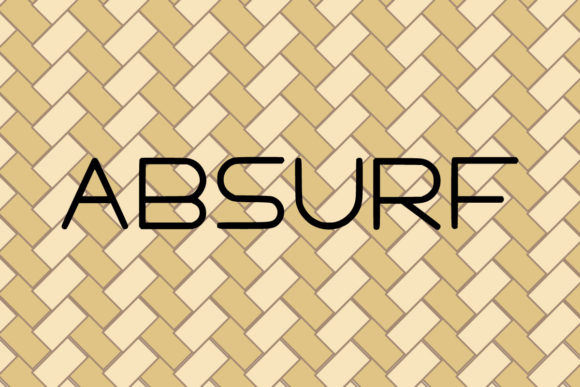
Introducing Absurf Font: The Ultimate Sans Serif for Creative Projects
Are you tired of using the same old fonts for your design projects? Look no further than Absurf Font, a thin lettered and cool sans serif font that’s perfect for making your creations stand out. In this article, we’ll dive into the features and benefits of Absurf Font, and explore how it can elevate your designs to the next level.
What is Absurf Font?
Absurf Font is a modern sans serif font that’s designed to be versatile and adaptable. Its thin lettering gives it a sleek and sophisticated look, making it perfect for a wide range of projects, from branding and advertising to packaging and digital design.
Key Features of Absurf Font
- Thin Lettering: Absurf Font features thin lettering that gives it a unique and modern look.
- Sans Serif: The font is a sans serif font, which means it doesn’t have any decorative lines or flourishes.
- Cool and Sophisticated: The font has a cool and sophisticated look that’s perfect for designs that need to convey a sense of style and elegance.
- Highly Versatile: Absurf Font can be used for a wide range of projects, from digital design to print materials.
Benefits of Using Absurf Font
So why should you choose Absurf Font for your next design project? Here are just a few benefits of using this amazing font:
- Stand Out from the Crowd: Absurf Font is a unique and distinctive font that will help your designs stand out from the crowd.
- Perfect for Modern Designs: The font’s modern look and feel make it perfect for designs that need to convey a sense of style and sophistication.
- Easily Readable: Despite its thin lettering, Absurf Font is highly readable, even at small sizes.
- Flexible: The font can be used for a wide range of projects, from digital design to print materials.
How to Use Absurf Font in Your Designs
Using Absurf Font in your designs is easy. Here are a few tips to get you started:
- Pair it with Other Fonts: Absurf Font pairs well with other sans serif fonts, as well as serif fonts with a similar feel.
- Use it for Headings: The font’s thin lettering makes it perfect for headings and titles.
- Experiment with Colors: Absurf Font looks great in a range of colors, from bold and bright to subtle and muted.
Who is Absurf Font for?
Absurf Font is perfect for designers and crafters who are looking for a modern and versatile font for their projects. Whether you’re a professional designer or a DIY enthusiast, this font is sure to become a staple in your design toolkit.
- Graphic Designers: Absurf Font is perfect for graphic designers who need a modern and versatile font for their designs.
- Digital Designers: The font’s clean and simple look makes it perfect for digital designs, from websites to mobile apps.
- Crafters: Absurf Font is also perfect for crafters who want to add a personal touch to their projects.
In conclusion, Absurf Font is a thin lettered and cool sans serif font that’s perfect for making your designs stand out. Its versatility, readability, and modern look make it perfect for a wide range of projects, from digital design to print materials. Whether you’re a professional designer or a DIY enthusiast, Absurf Font is sure to become a staple in your design toolkit.